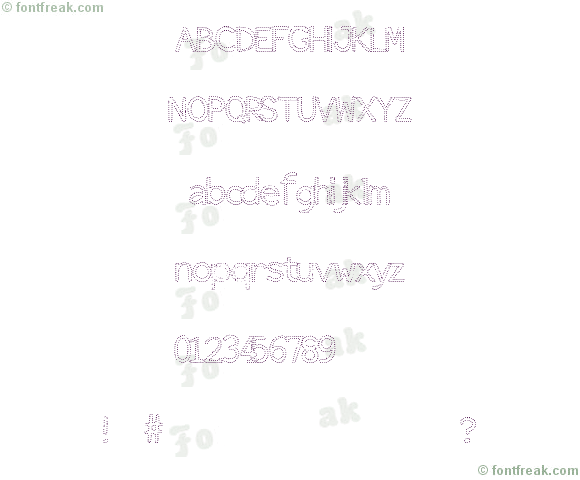
DotOutline
About DotOutline
The DotOutline font by Xerographer Fonts is a striking display typeface that combines modern aesthetics with a playful twist, making it a perfect choice for various creative projects. As a decorative font, DotOutline showcases a unique outline style characterized by its dotted strokes, which add an intriguing visual element. The font features a consistent stroke weight that maintains clarity while providing a light-hearted feel. The spacing between the letters is well-calibrated, ensuring readability without sacrificing style.
This font is particularly well-suited for use cases such as wedding invitations, where it can add a whimsical touch, and movie posters, where its bold outline can effectively draw attention. Additionally, DotOutline is ideal for restaurant menus, giving a modern and inviting look to food listings, and social media graphics, where it can enhance engagement with its distinctive charm. Its versatility also makes it a great choice for branding projects, such as logos for creative businesses looking to stand out.
What truly sets the DotOutline font apart is its ability to blend fun with functionality. The playful dotted outlines provide a unique aesthetic that captures attention and sparks curiosity, making it a fantastic choice for those looking to make a memorable impression. Whether you’re designing for print or digital media, the DotOutline font free download is an invaluable addition to any designer's toolkit, ready to inspire and enhance your creative endeavors.